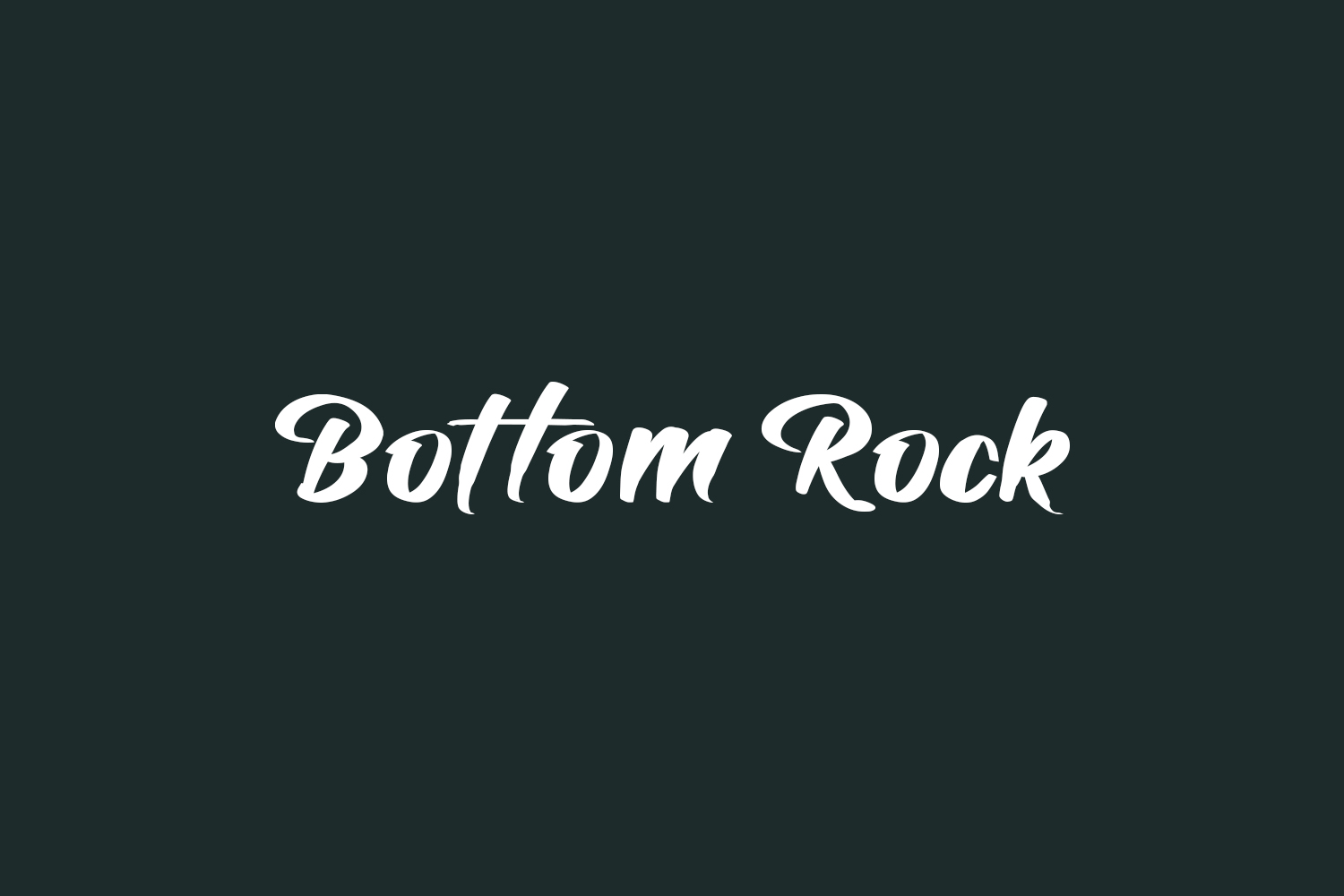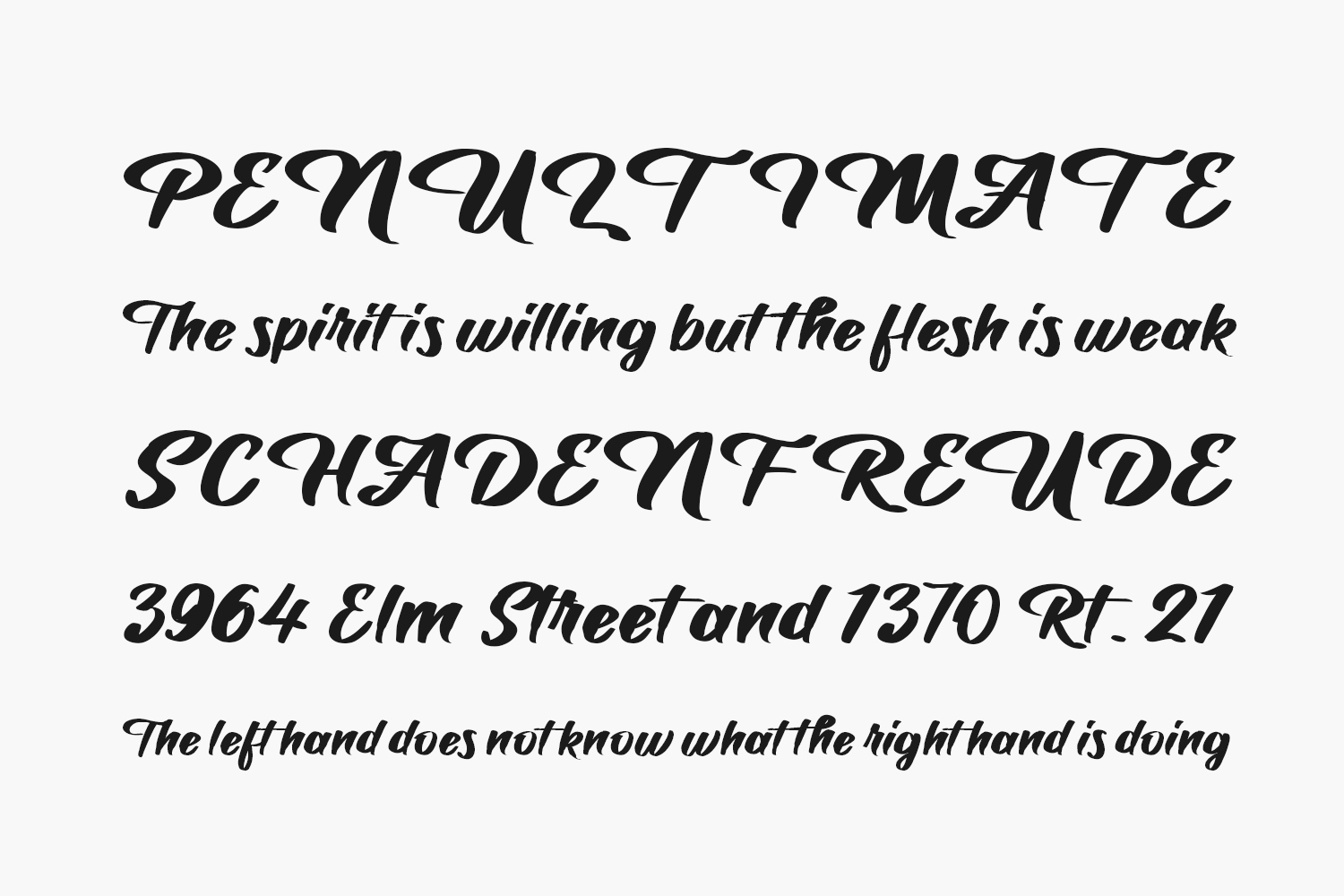
Bottom Rock Free Font exudes a sense of fearless self-expression, its bold strokes and fluid movements akin to the sweeping brushstrokes of a passionate artist. Each letter is a testament to the unbridled creativity that exists within us all, and the freedom to let our true selves shine through. This font brings to mind the raw, unbridled energy of a rock concert, and it’s impossible not to feel a surge of emotion when reading text set in this dynamic and emotive font.